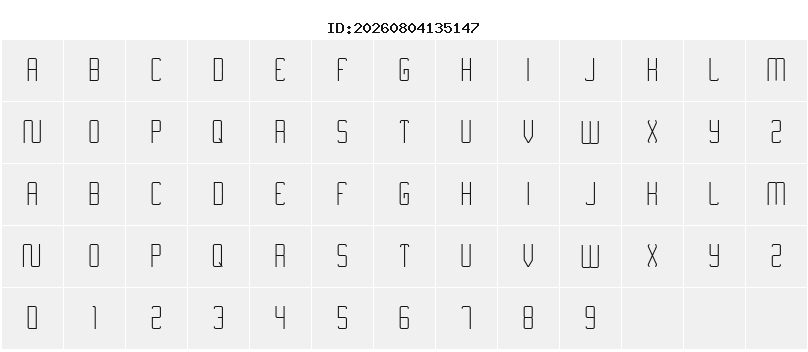
• Font Name: Nimiran
• Full Font Name: Nimiran
• Designer: Tharique Azeez
• Manufacturer: Tharique Azeez
About Nimiran.ttf
Nimiran.ttf is a modern, elegant sans-serif font designed for ultimate readability and visual harmony. Perfect for branding, headlines, web design, and print materials.